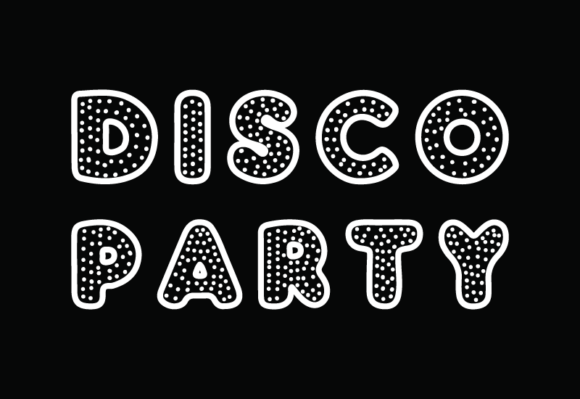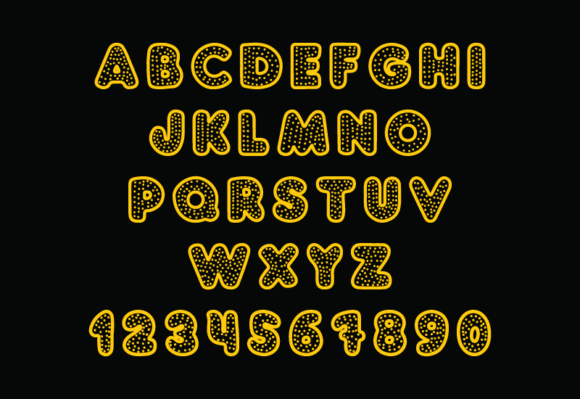
Get Ready to Groove with the Disco Party Font
Have you ever stared at a blank page, itching to bring your creative vision to life? The blank slate can be daunting, but what if it was an open invitation to let your imagination shine? For designers and creatives, the right font can be the key to unlocking a world of possibilities. That’s where the Disco Party Font comes in – a vibrant and eye-catching display font that’s sure to get your artistic juices flowing.
This striking font is more than just a stylish addition to your designs; it’s a statement piece that adds a touch of retro flair and playful vitality. With its exciting polka dot feature, the Disco Party Font is the perfect way to add some excitement to your projects and make them truly stand out. Whether you’re a seasoned designer or just starting out, this font is sure to ignite your creativity and get the party started!
Key Features of Disco Party Font
- Font Size: The font has a large character set, including uppercase and lowercase letters, numbers, and punctuation marks, making it suitable for a wide range of applications.
- Unique Characteristics: The Disco Party Font features a distinctive disco-inspired design, with bold lines, bright colors, and a lively atmosphere, making it perfect for creating eye-catching designs and party-themed materials.
Disco Party Font Review
I recently had the chance to work with the Disco Party Font, and I’m sharing my honest thoughts about this font.
- Fun and playful vibe: This font perfectly captures the energy and excitement of a disco party.
- Unique design: The Disco Party Font has a distinct style that sets it apart from other fonts in its category.
- High-quality glyphs: The font includes a wide range of characters, including uppercase and lowercase letters, numbers, and punctuation.
- Limited language support: The font primarily supports English and may not be suitable for projects requiring languages with non-Latin scripts.
- Not ideal for body text: Due to its playful nature, the Disco Party Font may not be the best choice for large blocks of text or body content.
- May not be suitable for all designs: The font’s disco-inspired aesthetic may not be a good fit for every design project or target audience.
Overall, I think the Disco Party Font is a great choice for projects that need a fun, attention-grabbing font. However, it may not be the best fit for every project.
Tips for Getting the Most Out of Disco Party Font
To get the most out of Disco Party Font, try the following:
- Use it for eye-catching headlines and titles
- Combine it with neon colors for a retro disco effect
- Experiment with different font sizes and styles to create a dynamic look
Disco Party Font is perfect for:
- Retro-themed parties and events
- Music festival and concert promotions
- Neon-lit posters and flyers
Alternative Fonts for Designers